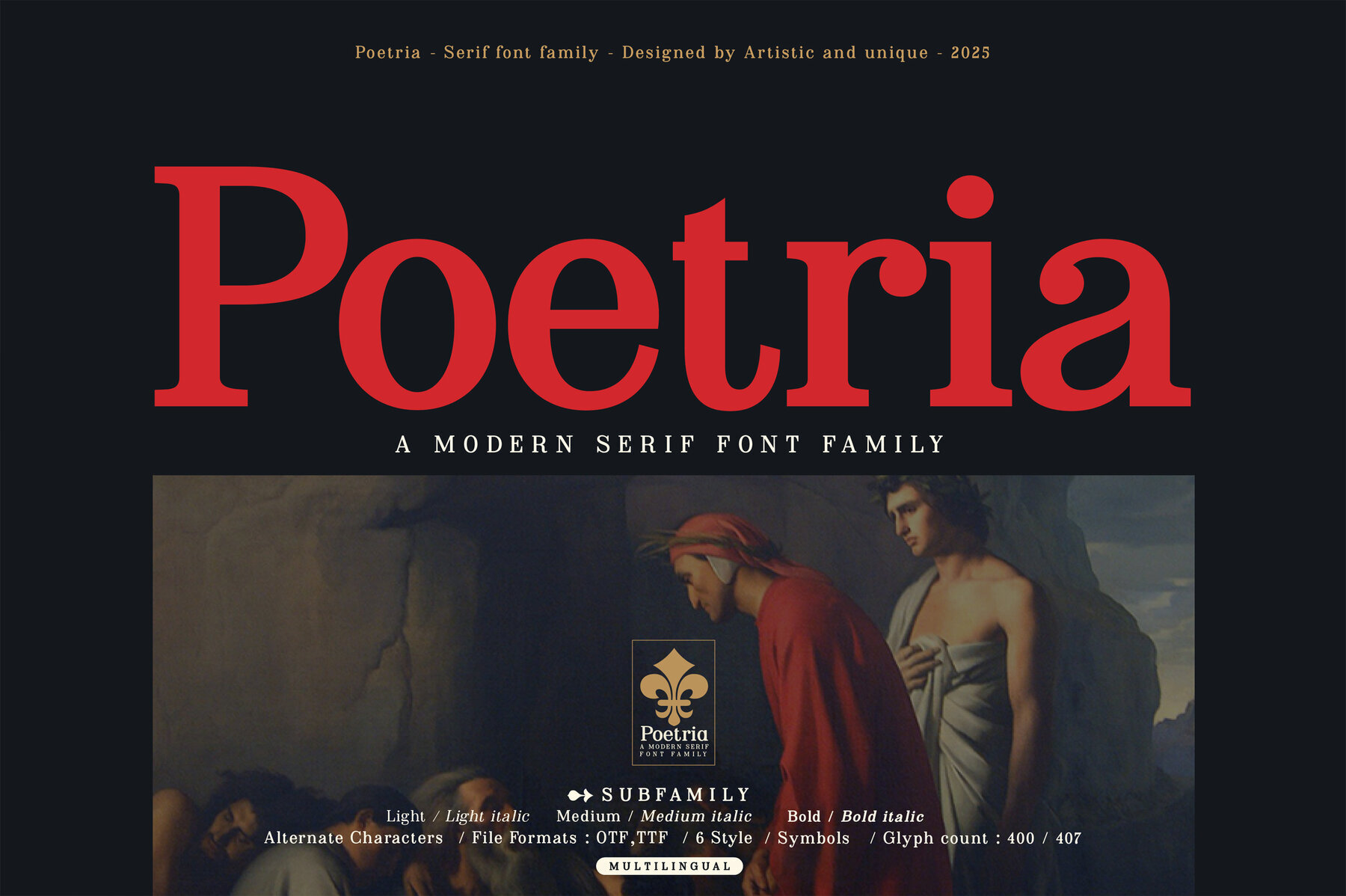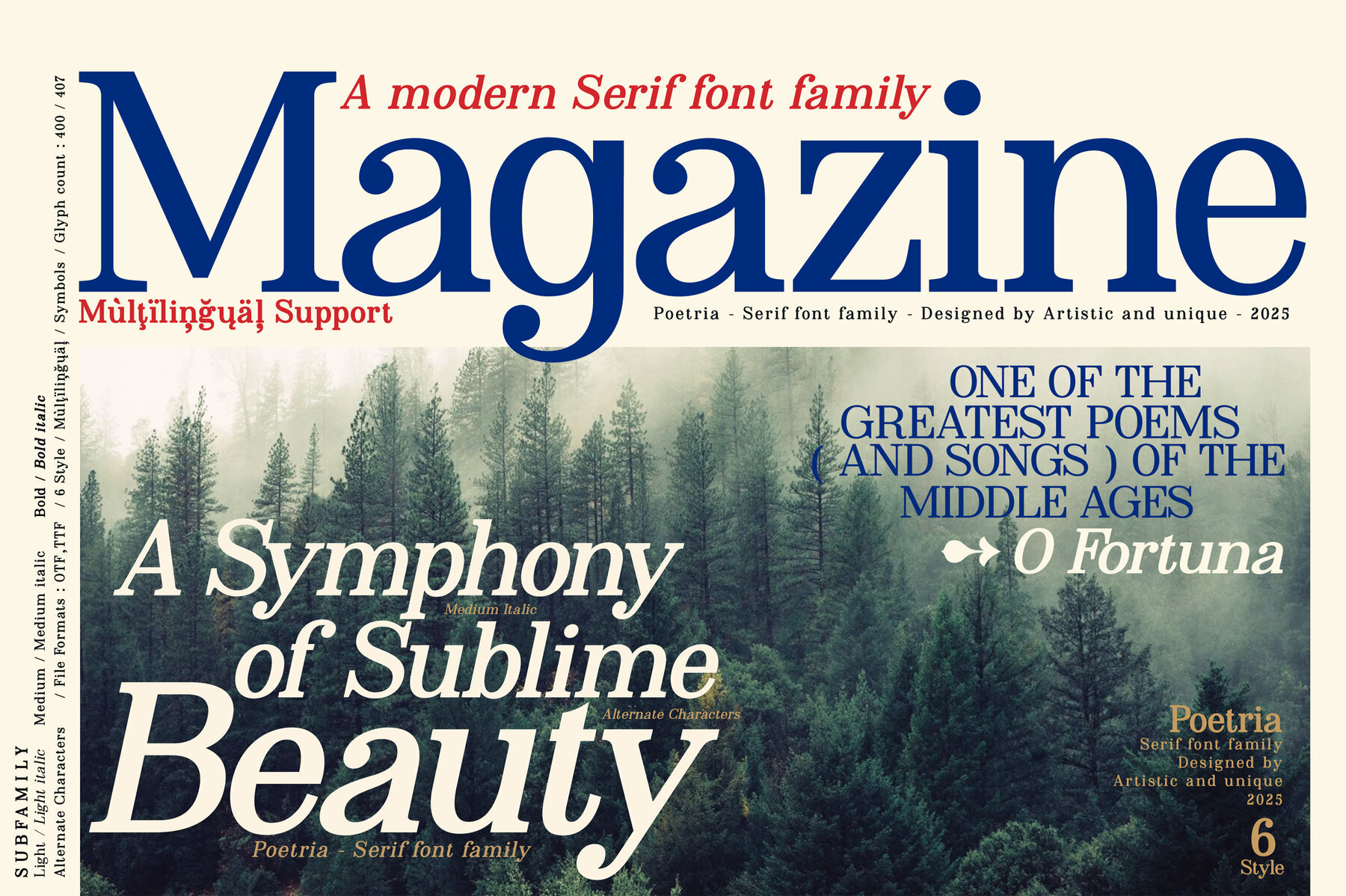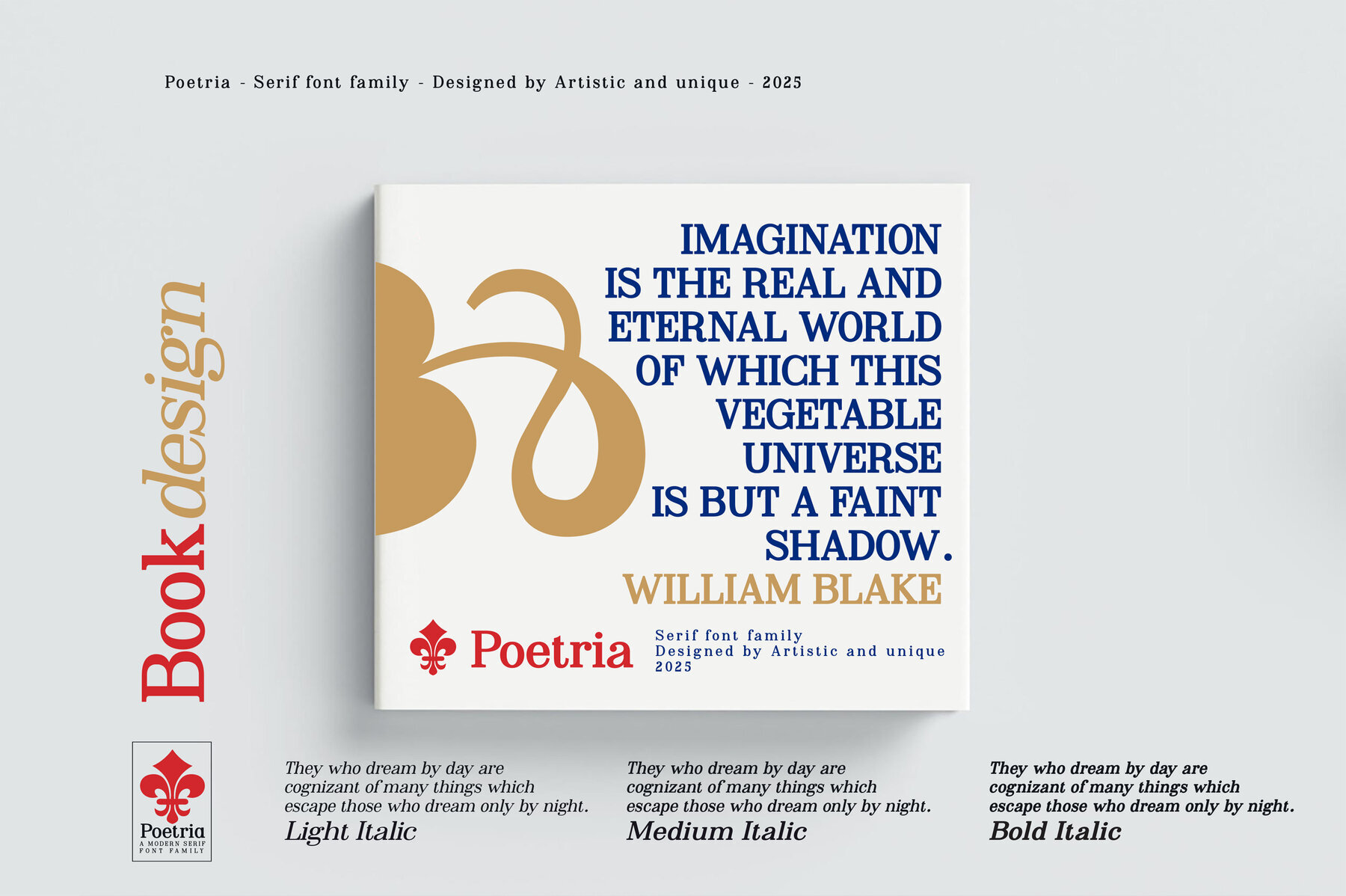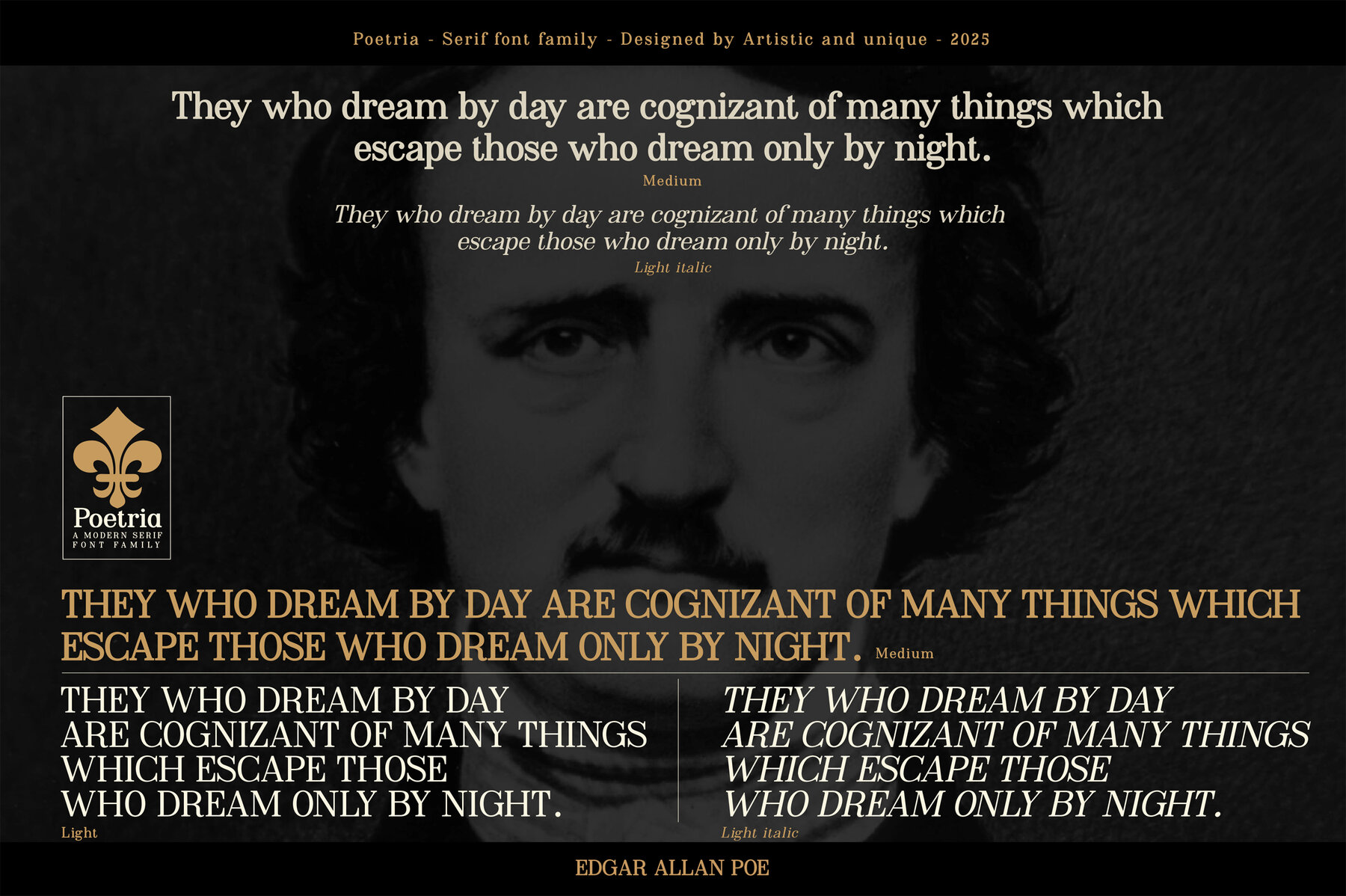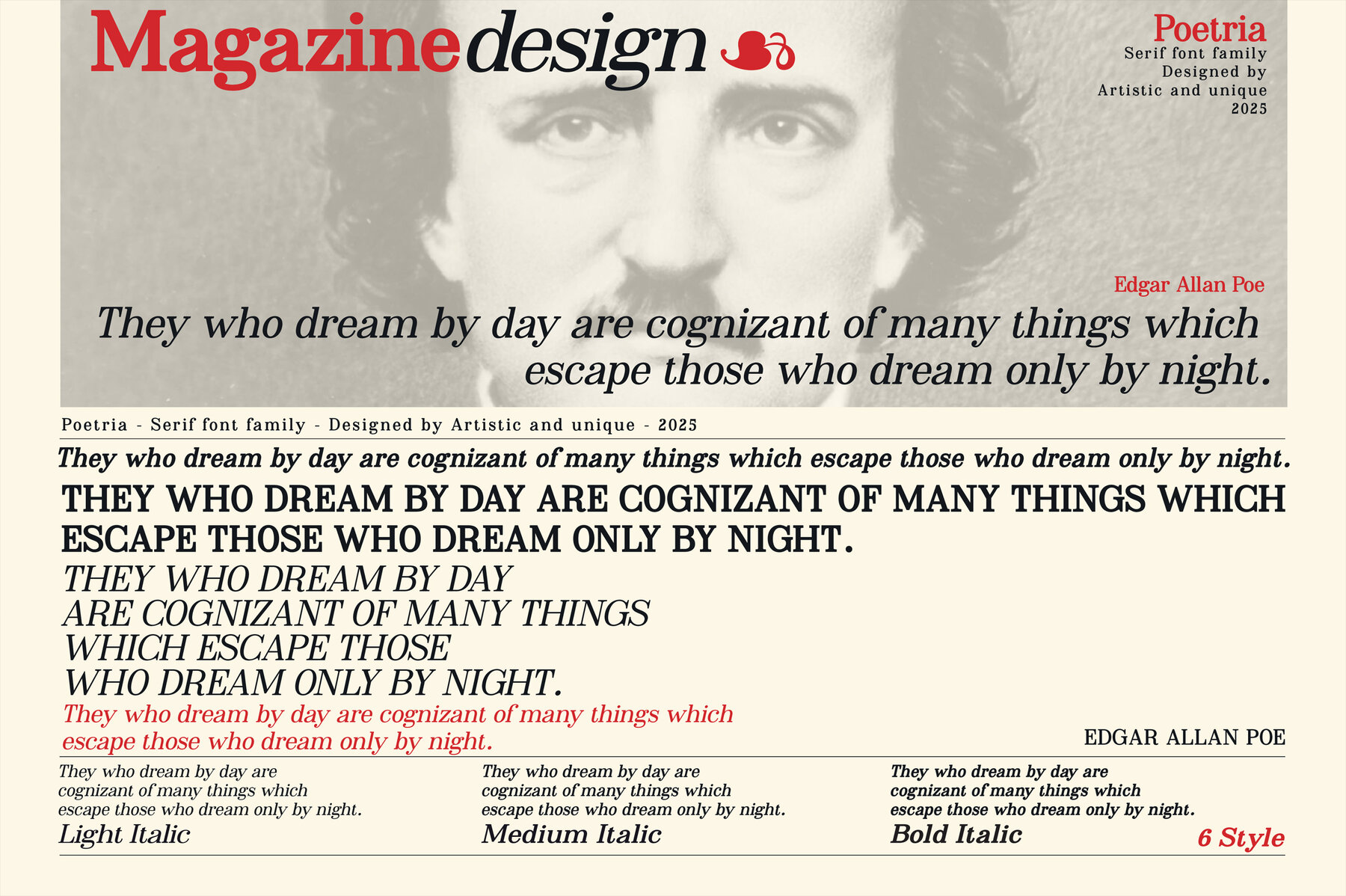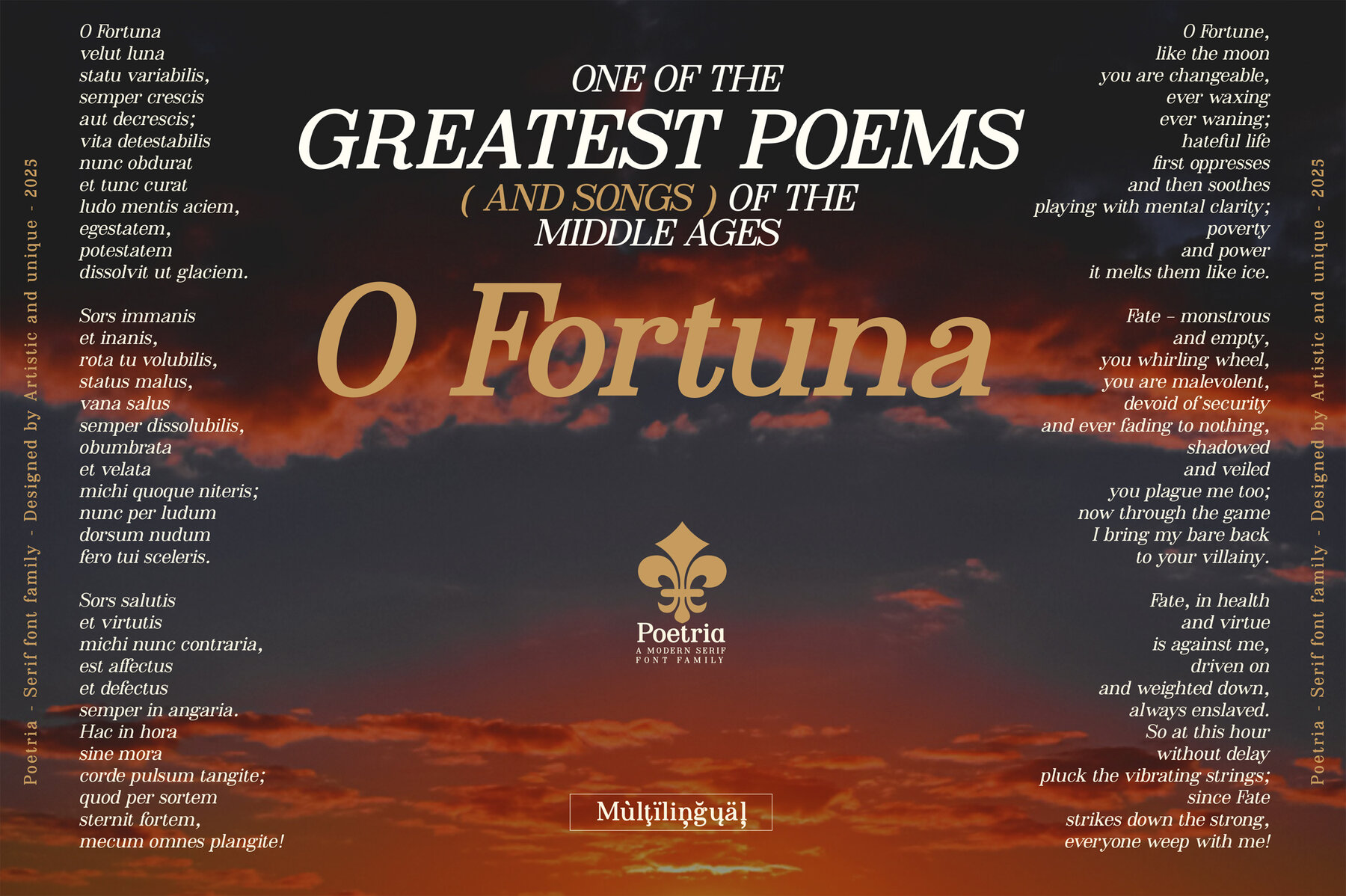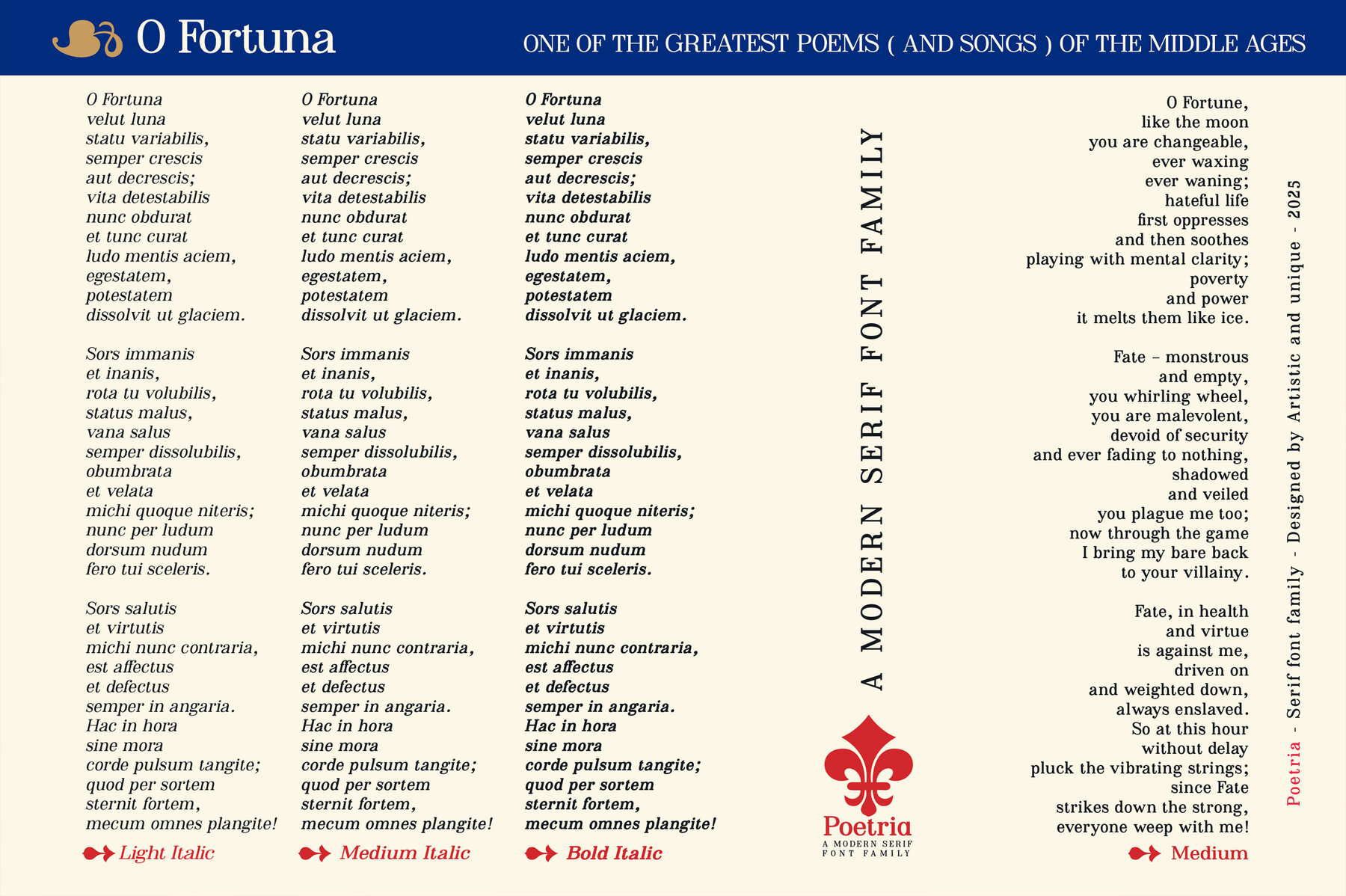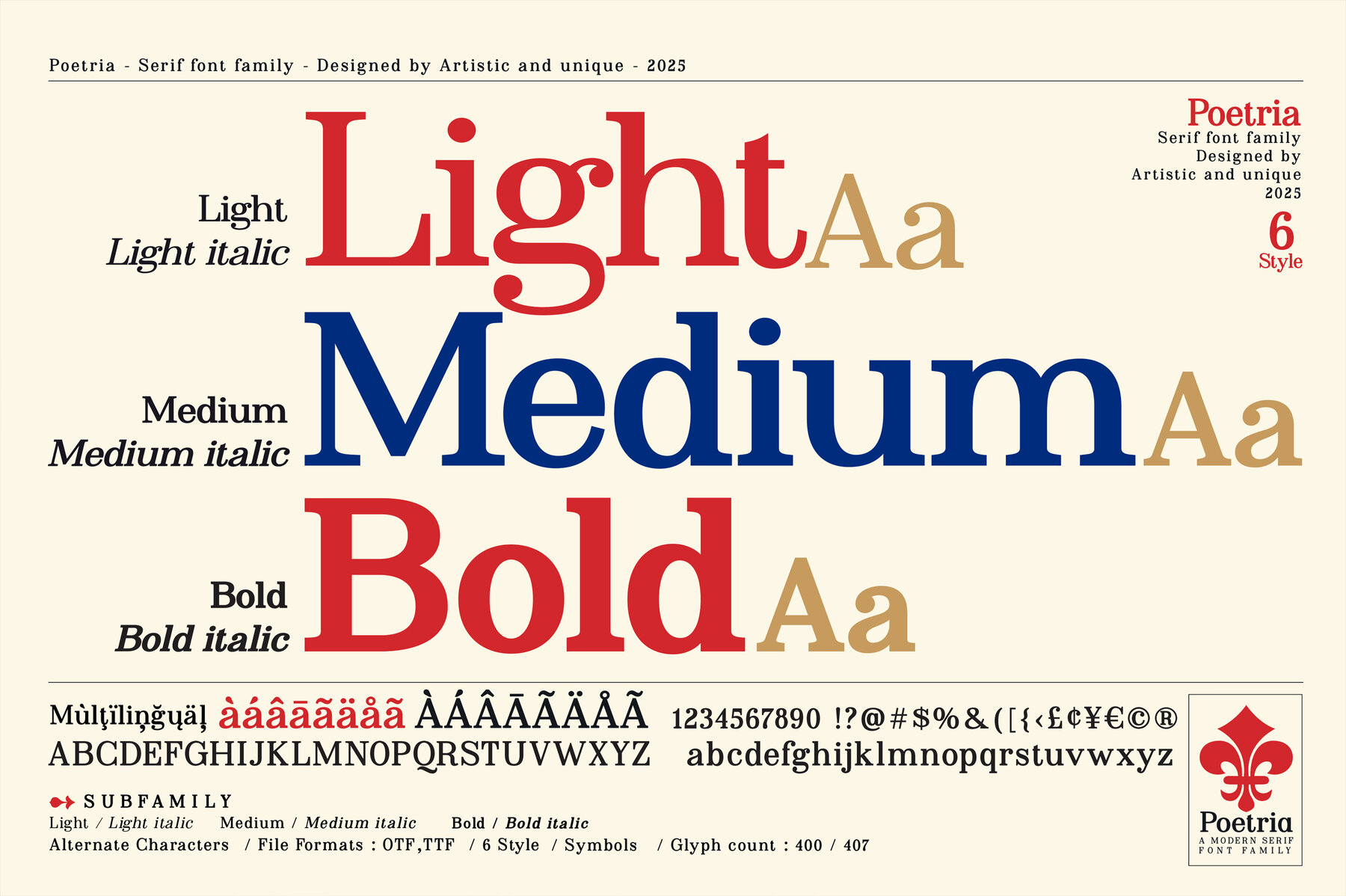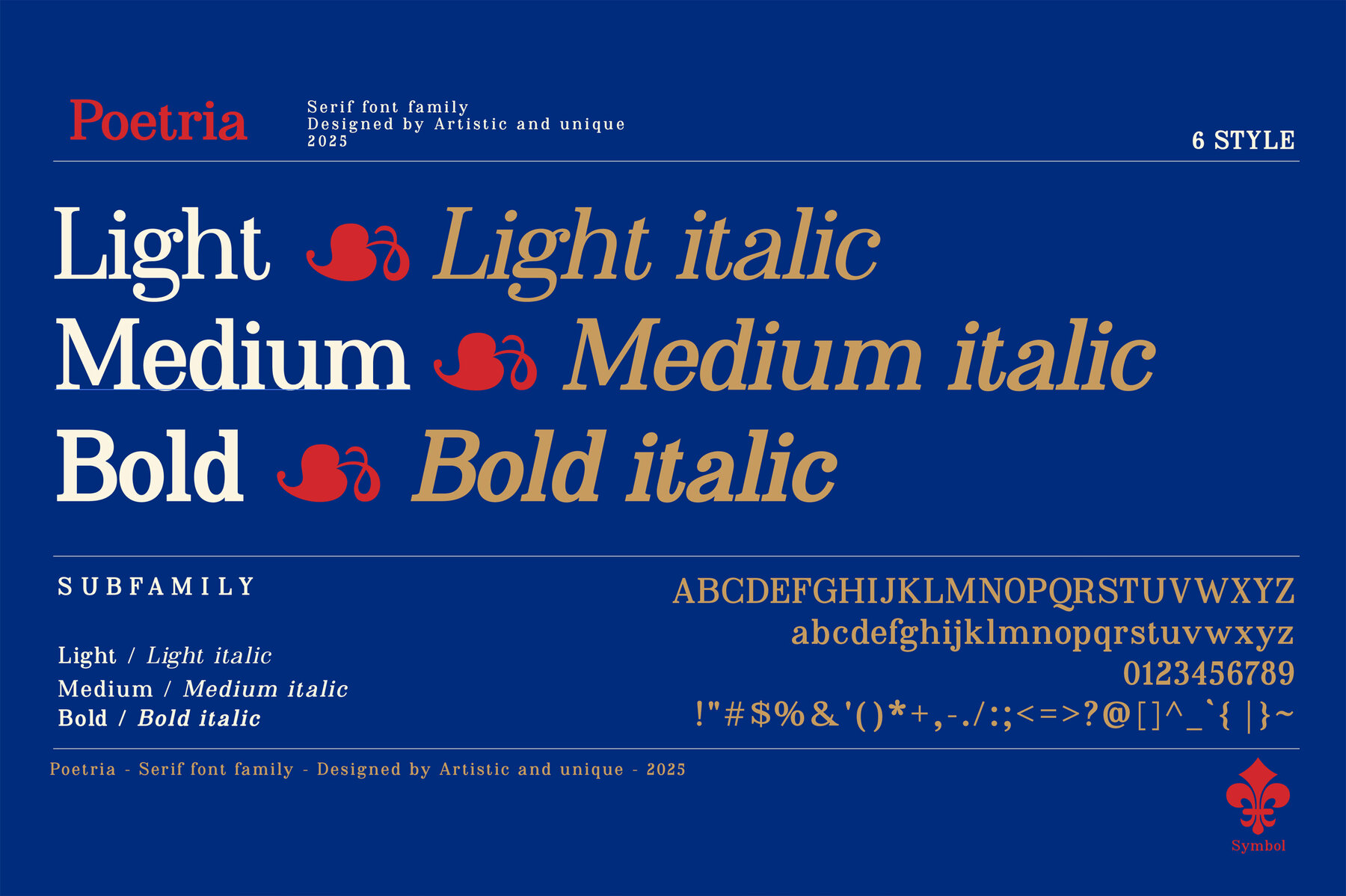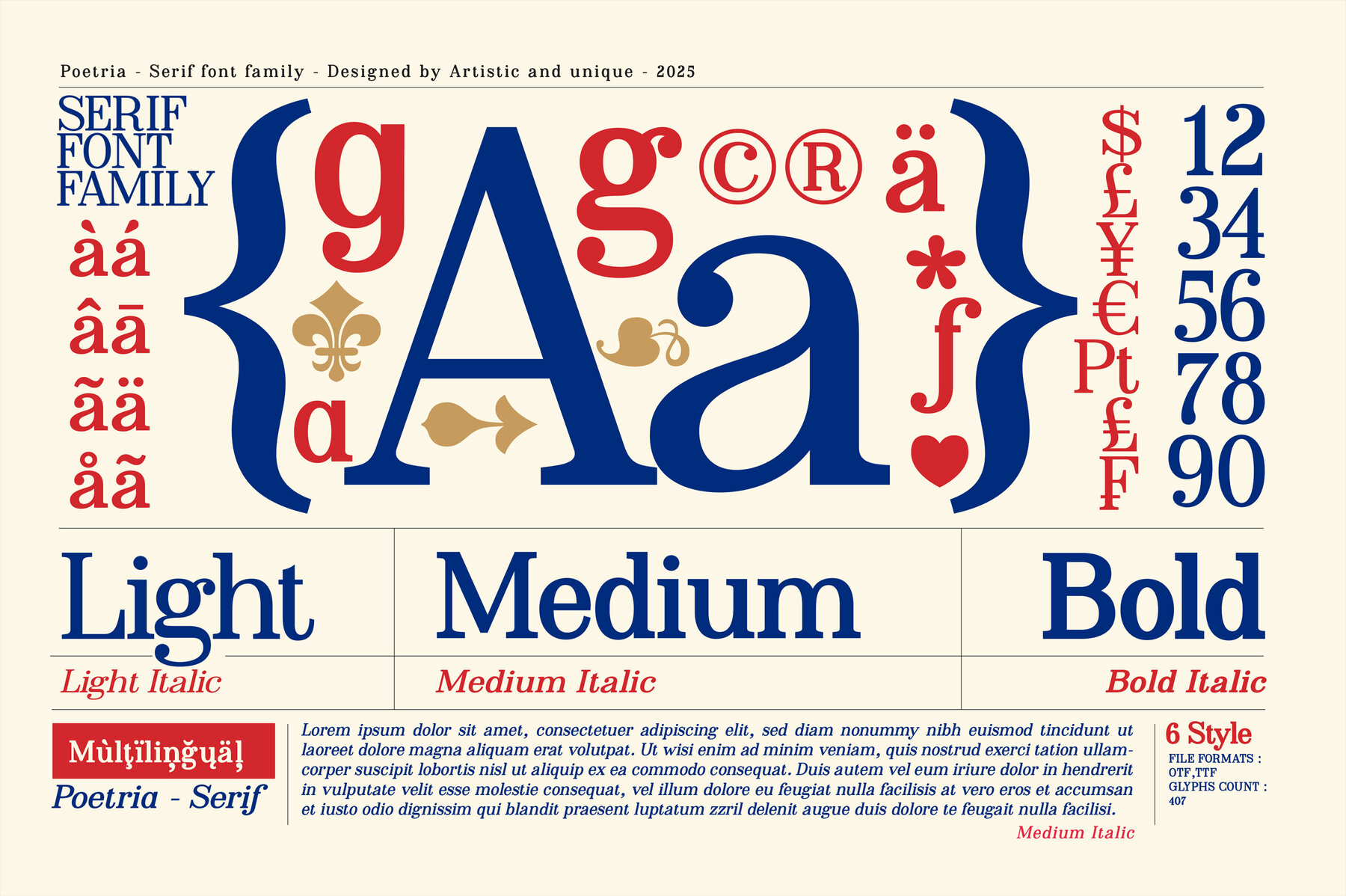
Poetria Font
The Poetria serif font family, featuring six distinct styles, is your go-to for projects seeking elegance and sophistication. These typefaces offer multilingual support, making them suitable for a wide range of applications. Designed to enhance both print and digital formats, Poetria excels in headlines, body text, brand identity, luxury packaging, and more. It offers high readability coupled with a striking appearance, making it suitable for editorial work, magazines, and web design. The font seamlessly integrates standard characters to deliver clean and polished text. Combining nostalgic appeal with contemporary aesthetics, this serif font brings a timeless quality to modern design.Poetria: An Elegant Serif Font Family